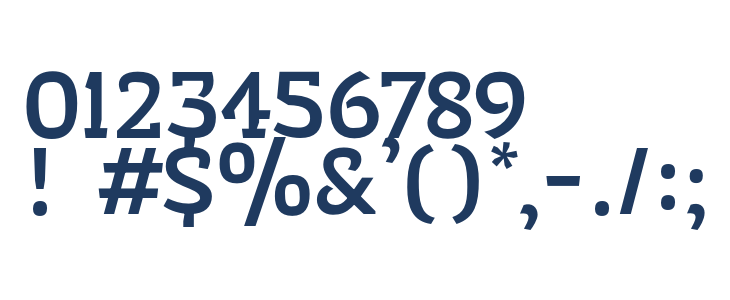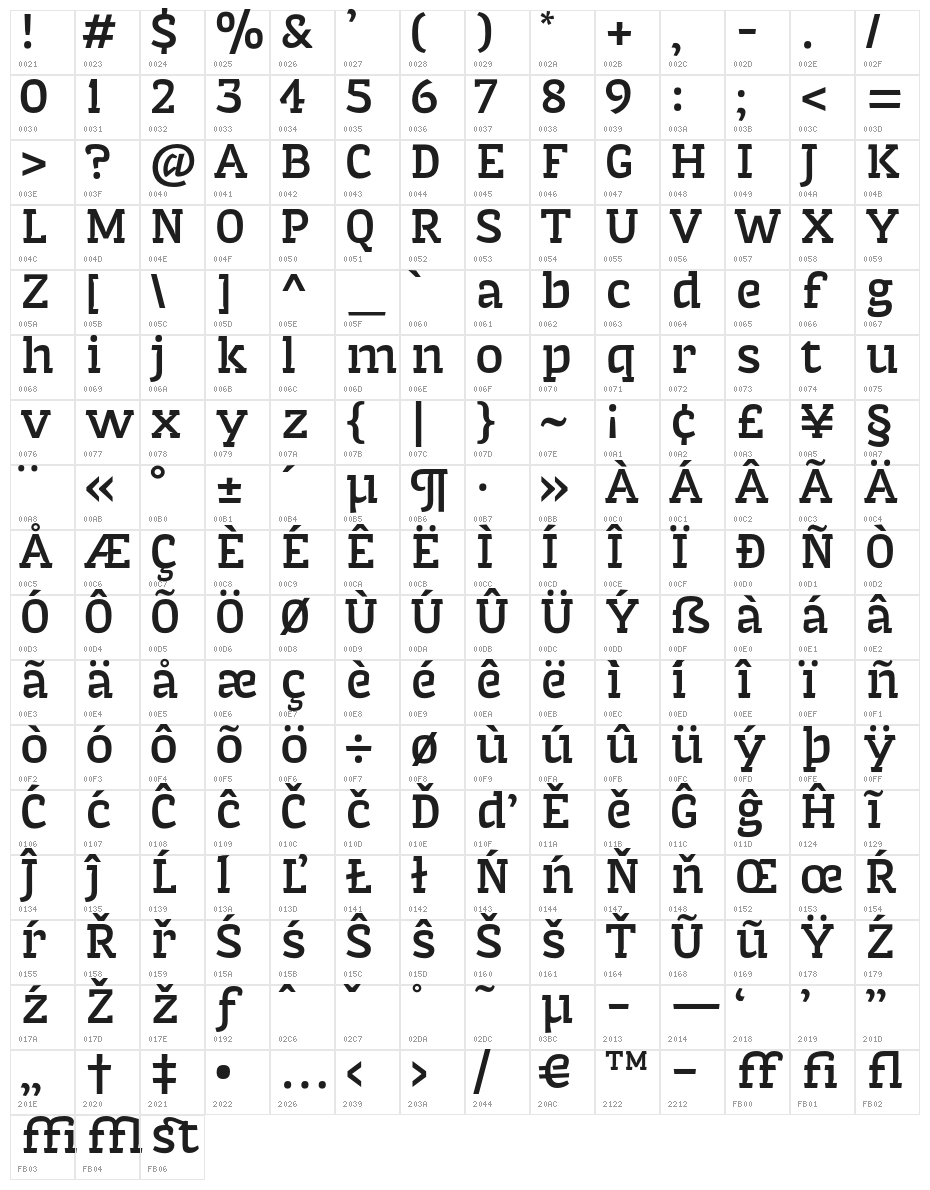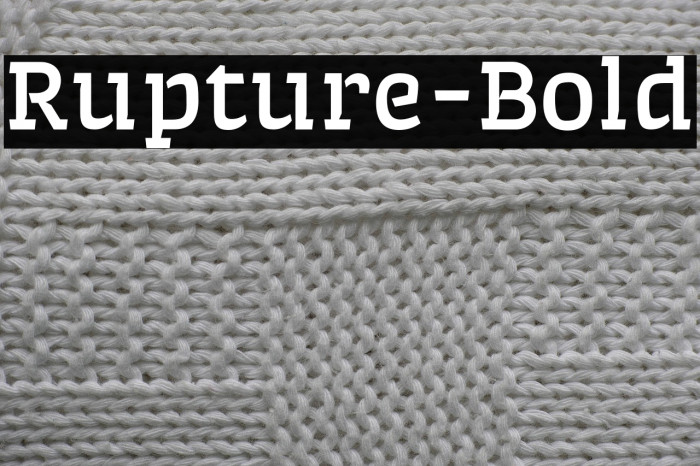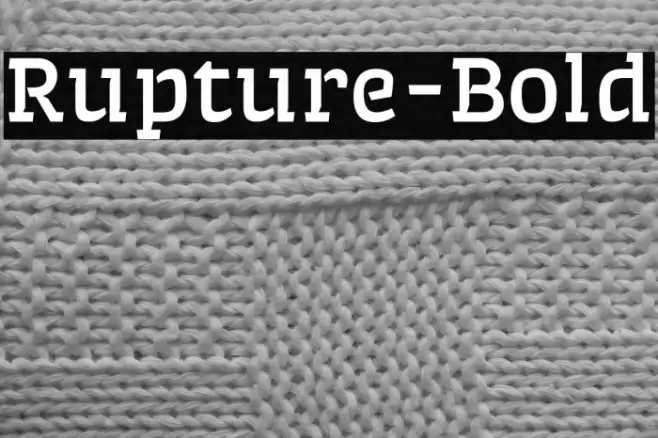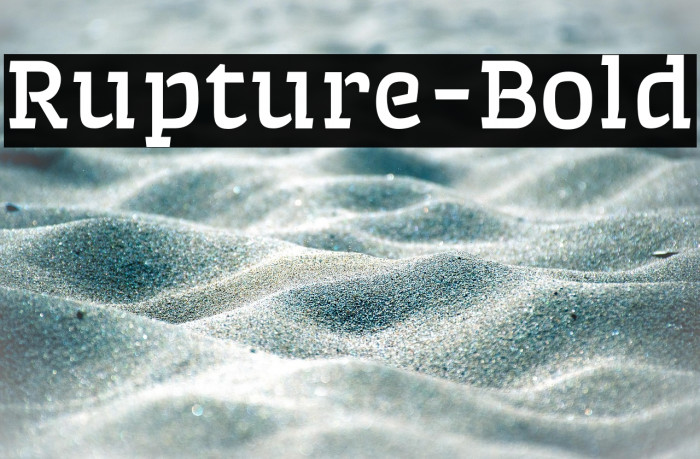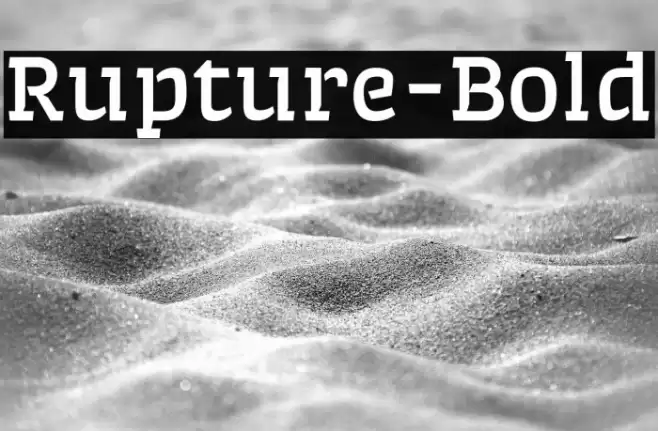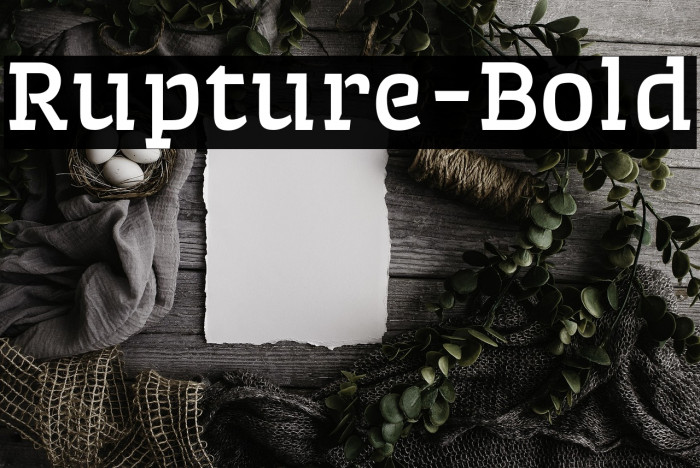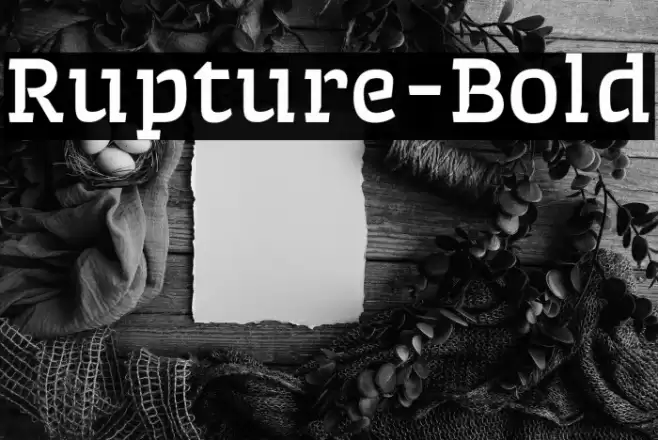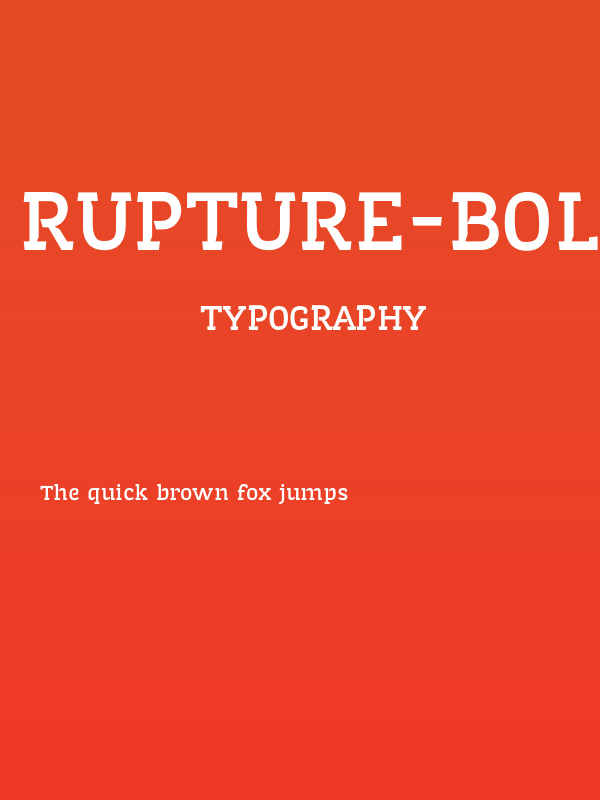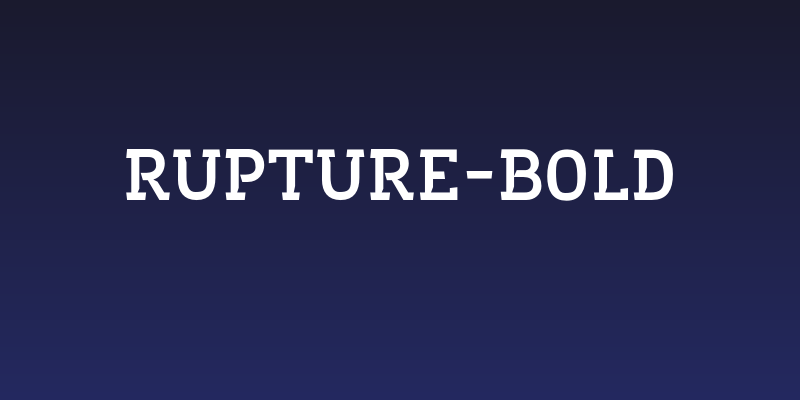
Rupture-Bold Font
Rupture-Bold Description
This font features a bold and robust design with strong, thick strokes that convey a sense of confidence and stability. The characters are well-defined with a slight curvature, adding a touch of elegance to the overall appearance. The uppercase letters are particularly striking, with a commanding presence that makes them ideal for headlines or titles. The lowercase letters maintain a consistent style, ensuring readability and cohesion. The numerals are clear and distinct, making them suitable for various applications. Special characters are included, offering versatility for different design needs.